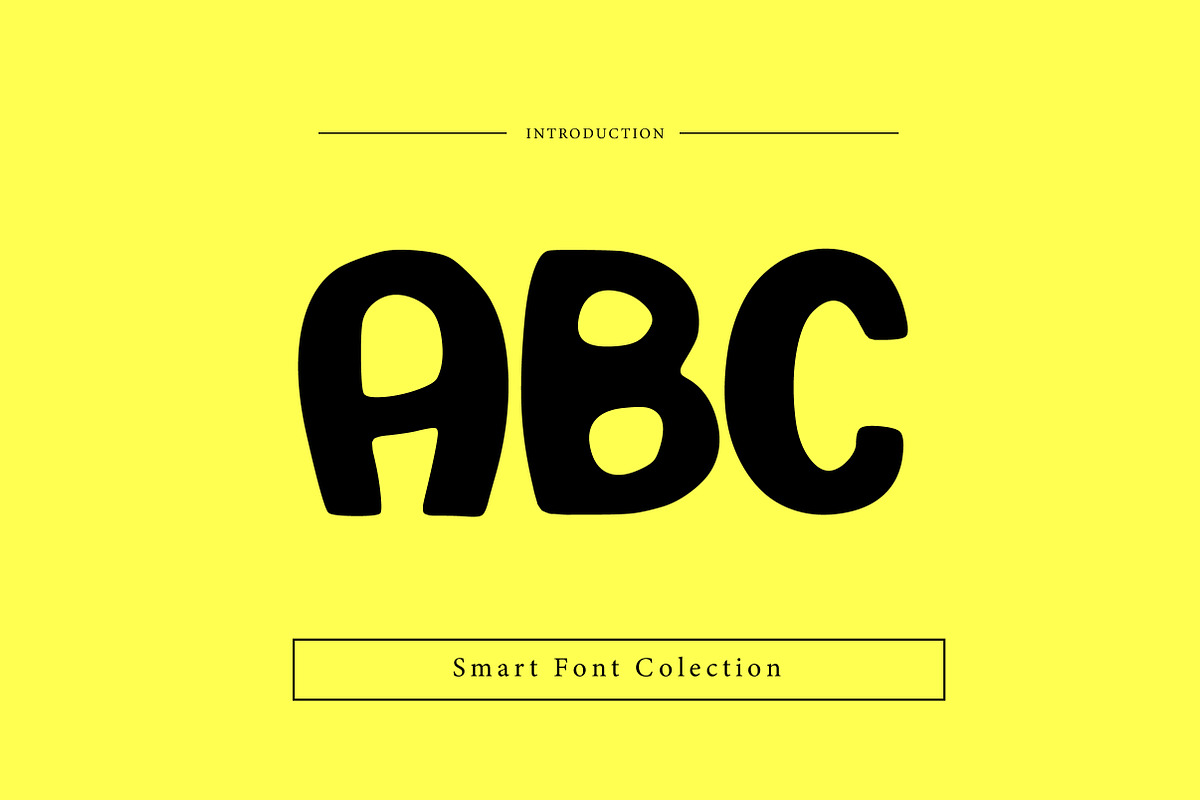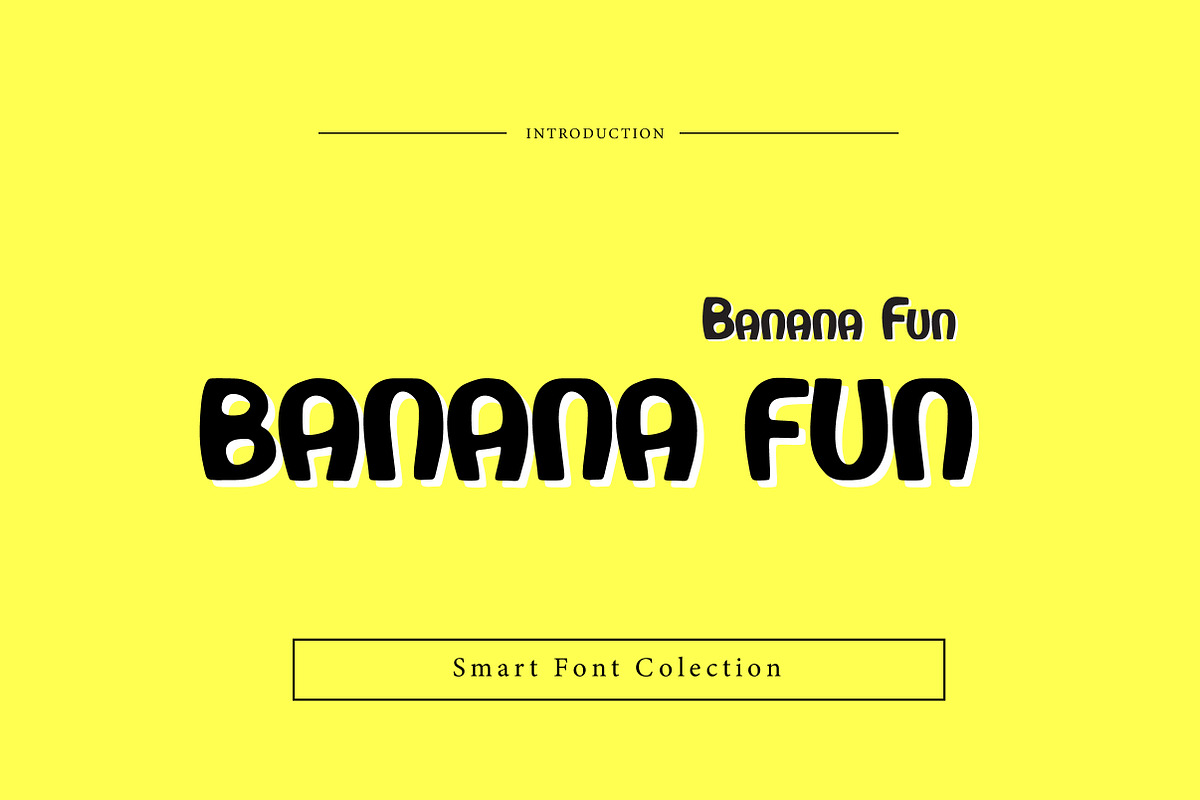
Banana Fun
Banana Fun is a playful, bold, and friendly display font designed to bring joy and energy to your designs. Inspired by fun shapes and rounded letterforms, this font is perfect for kids projects, cartoons, games, branding, posters, stickers, packaging, and social media graphics. Its cheerful personality makes it ideal for eye-catching headlines, logos, and creative layouts where a fun and casual tone is needed.